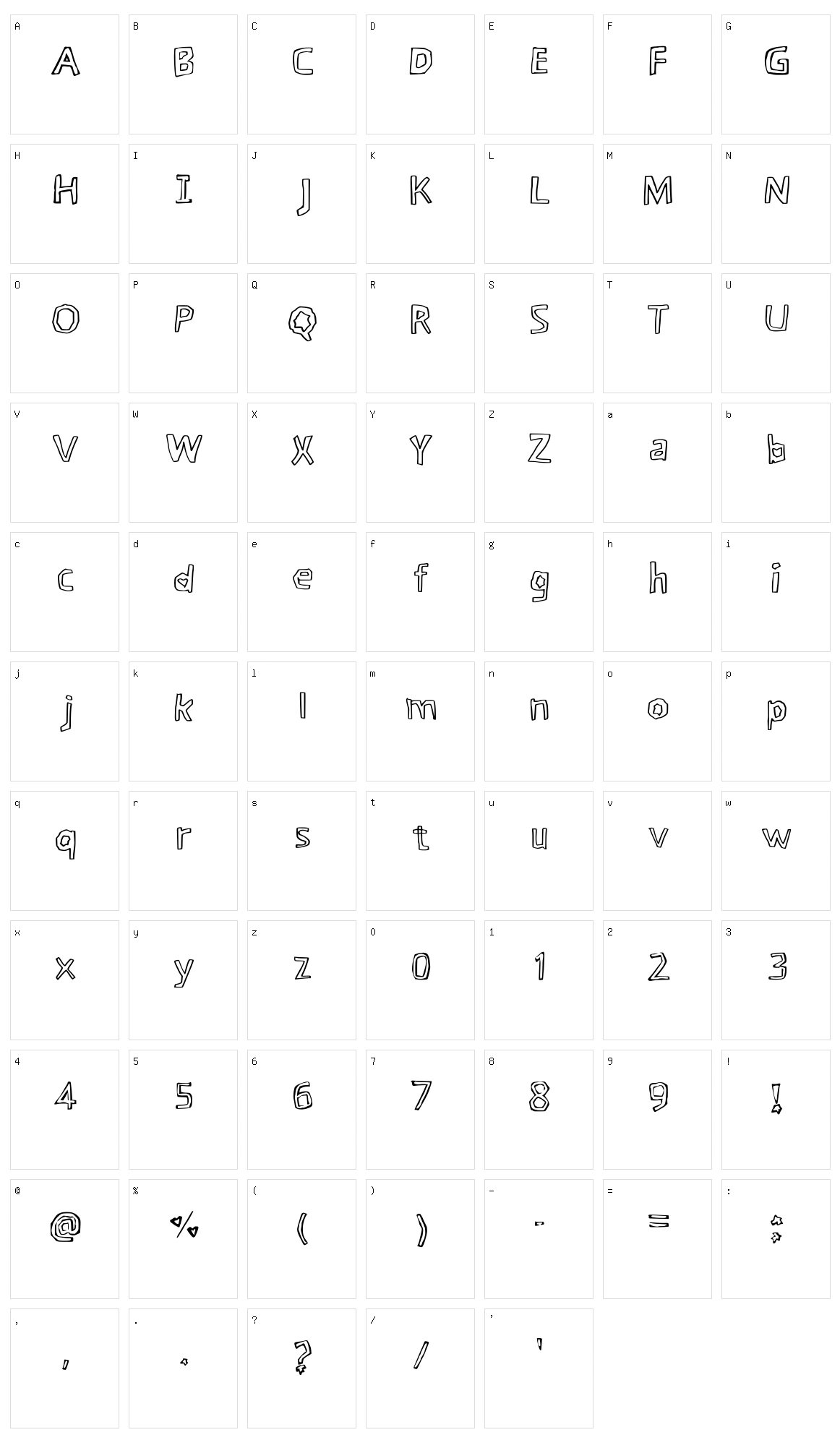
The free font Garing is carefully designed by Winalve, showcasing a thoughtful balance of creativity and usability and falls under the Cartoon font style. When you download the ZIP file, it contains only 59.08 KB of font files, making it lightweight and quick to download. Please review the license details below to understand permitted usage and distribution rights. If license information is not available, we recommend using this font for personal projects only or contacting the author directly for commercial usage permissions.